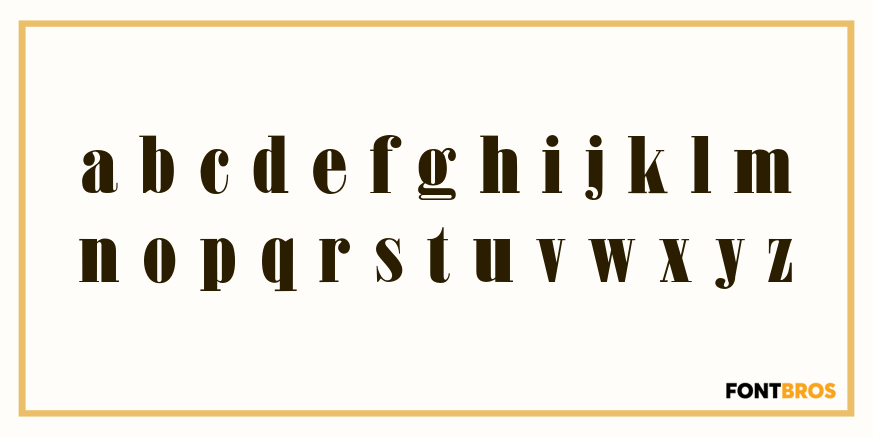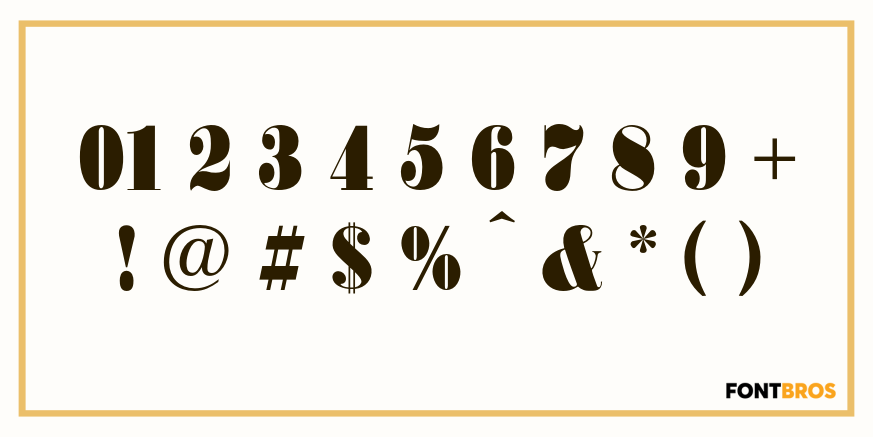
Wood No. 20
Wood No. 20 brings the bold, unmistakable character of 19th-century wood type into the modern designer’s toolkit. With its high-contrast strokes, bracketed serifs, and sturdy slab-serif presence, this vintage display font is built to command attention.
Perfect for posters, packaging, logos, headlines, signage, apparel, and Americana-inspired branding, Wood No. 20 delivers a handcrafted, old-world feel without sacrificing clarity. Its ornamental details give every word a sense of history, grit, and charm, making it a natural fit for projects that need to feel classic, confident, and full of personality.
Whether you’re designing a saloon-style poster, a heritage brand mark, or a bold editorial headline, Wood No. 20 adds instant vintage impact with a timeless typographic voice.